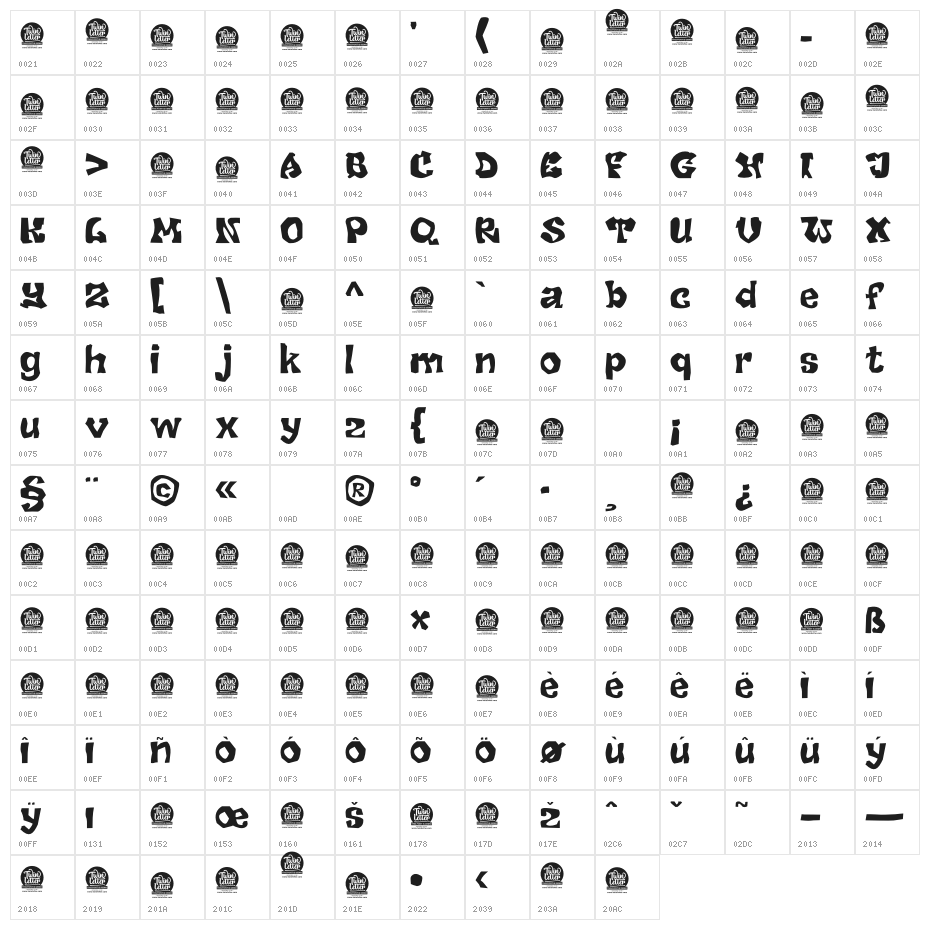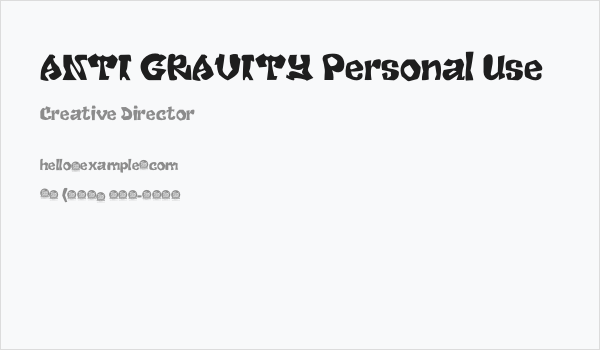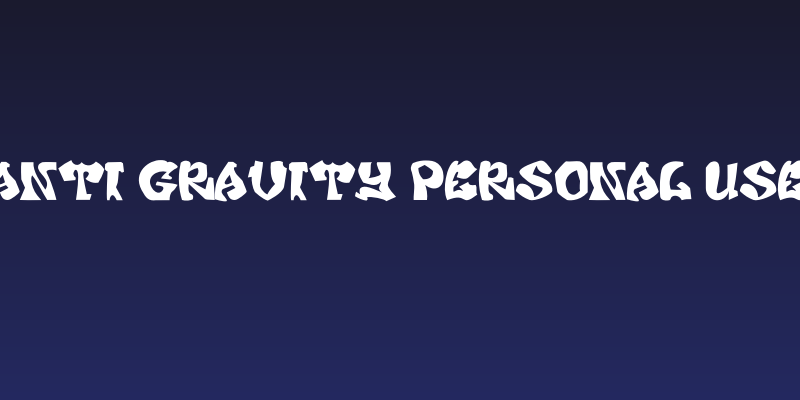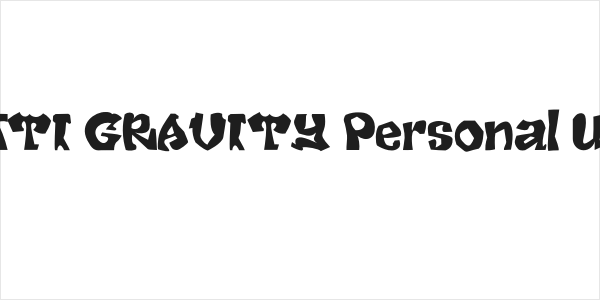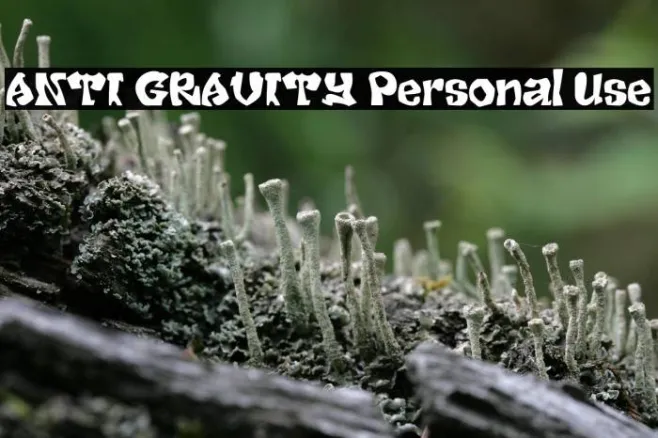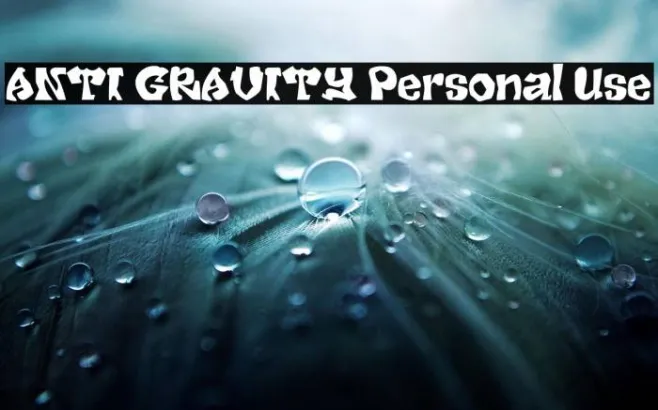
ANTI GRAVITY Personal Use Font
ANTI GRAVITY Personal Use Description
This font features a bold and dynamic style with a unique, hand-drawn appearance. The characters are heavily stylized, with thick strokes and sharp angles that give it a distinctive, edgy look. The uppercase letters are particularly striking, with exaggerated forms and a playful, almost graffiti-like aesthetic. The lowercase letters maintain the same boldness, ensuring consistency across the typeface. The numbers and special characters are equally bold, integrating seamlessly with the overall design. This font's high contrast and irregular shapes make it stand out, perfect for projects that require a strong visual impact.
| Overall Style | Modern, Artistic |
| Proposed Projects | Ideal for posters, album covers, streetwear branding, and any project needing a bold, artistic touch. |